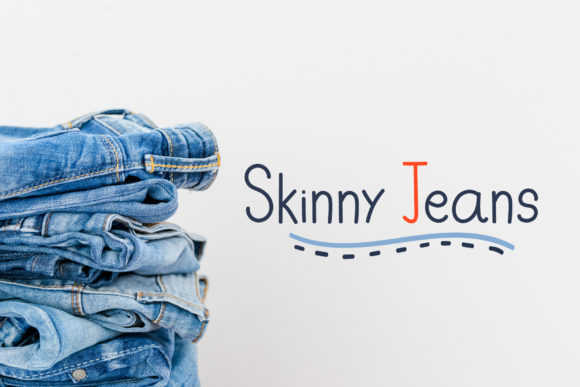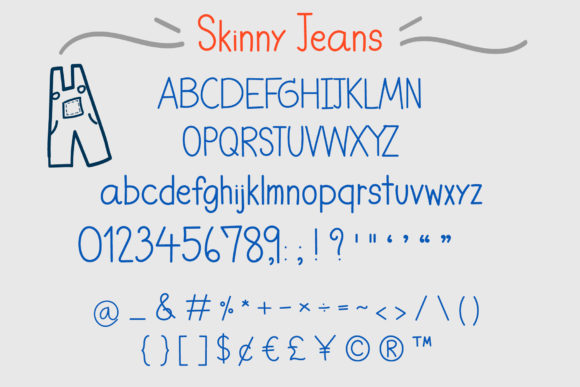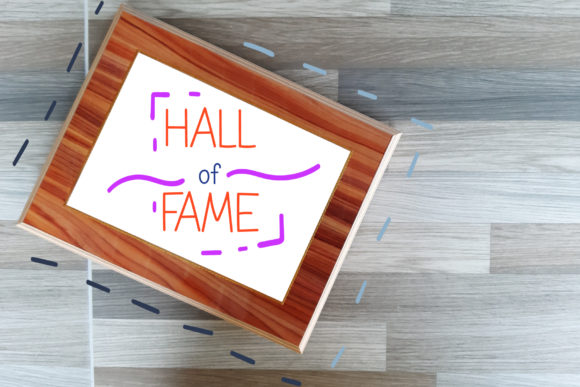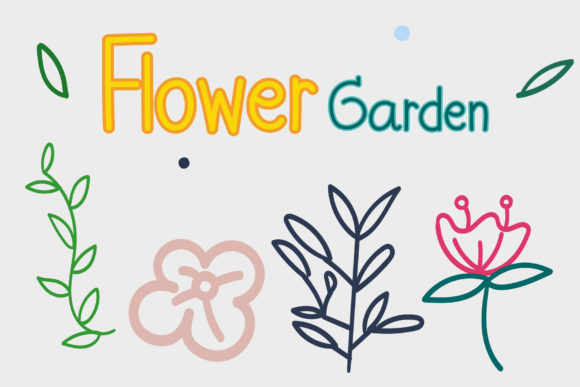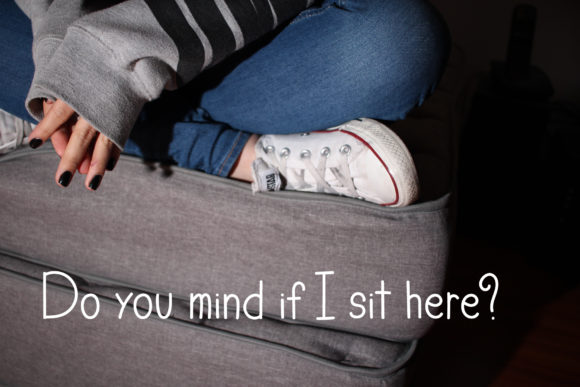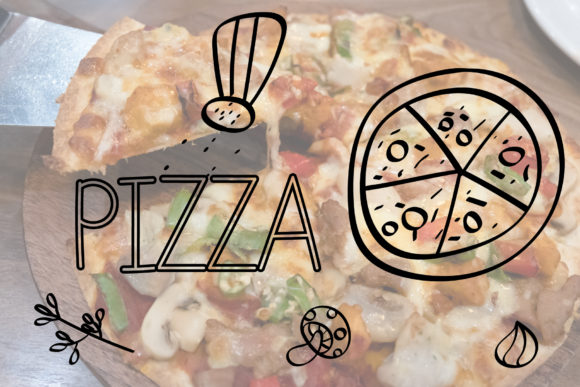
Skinny Jeans Font
About Skinny Jeans Font
Skinny Jean feels equally charming and modern. This stunning script font is a stylish homage to classic calligraphy. It features a varying baseline, smooth lines, gorgeous glyphs and stunning alternates.